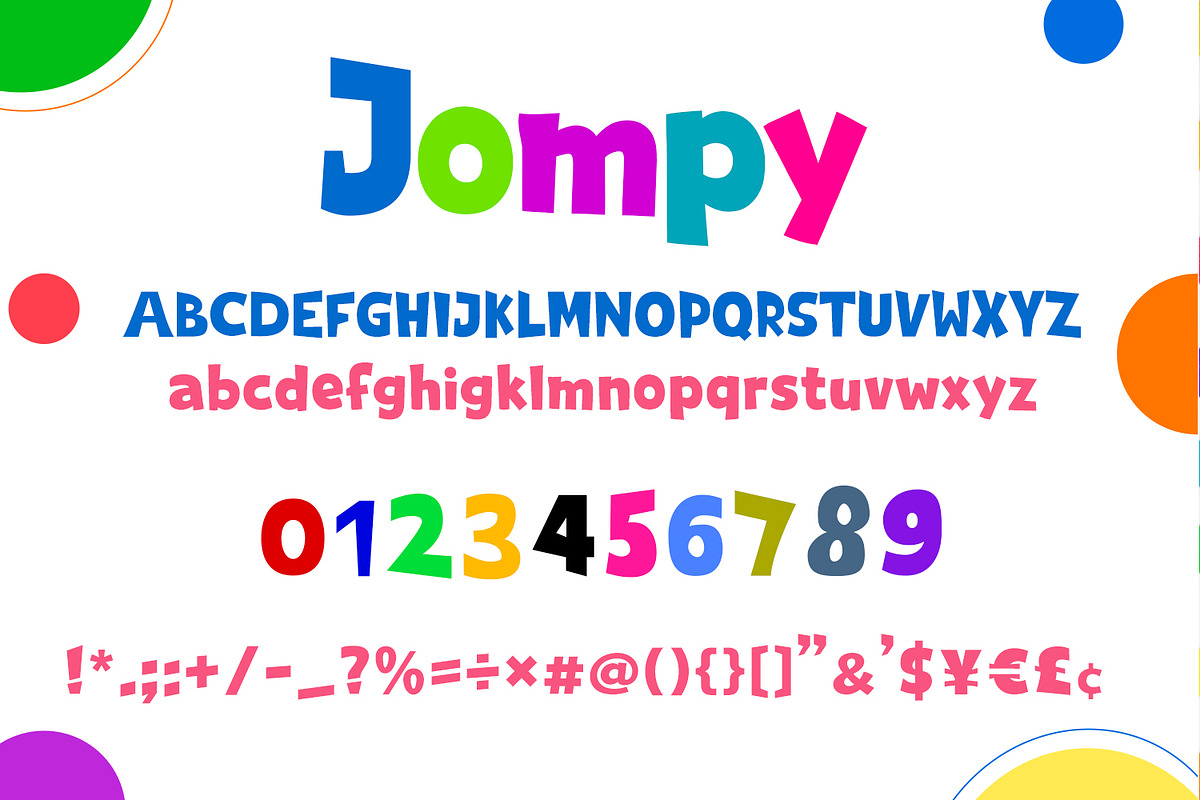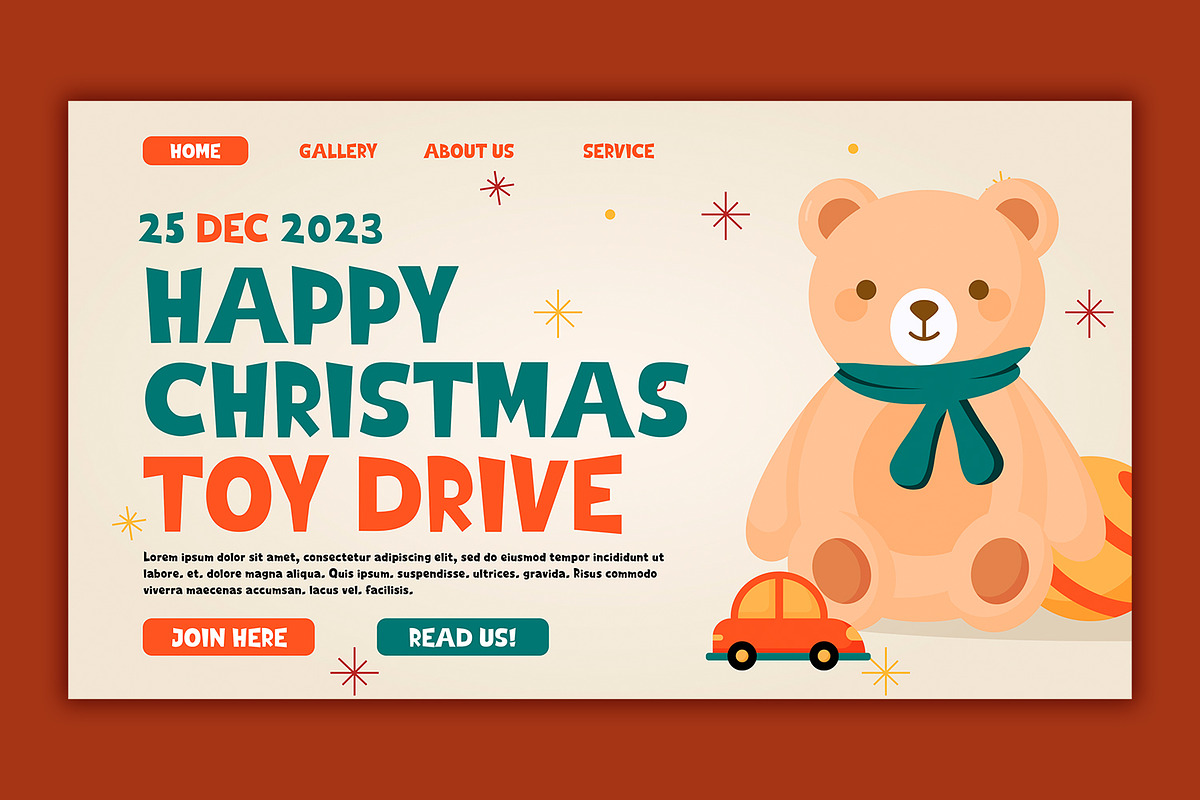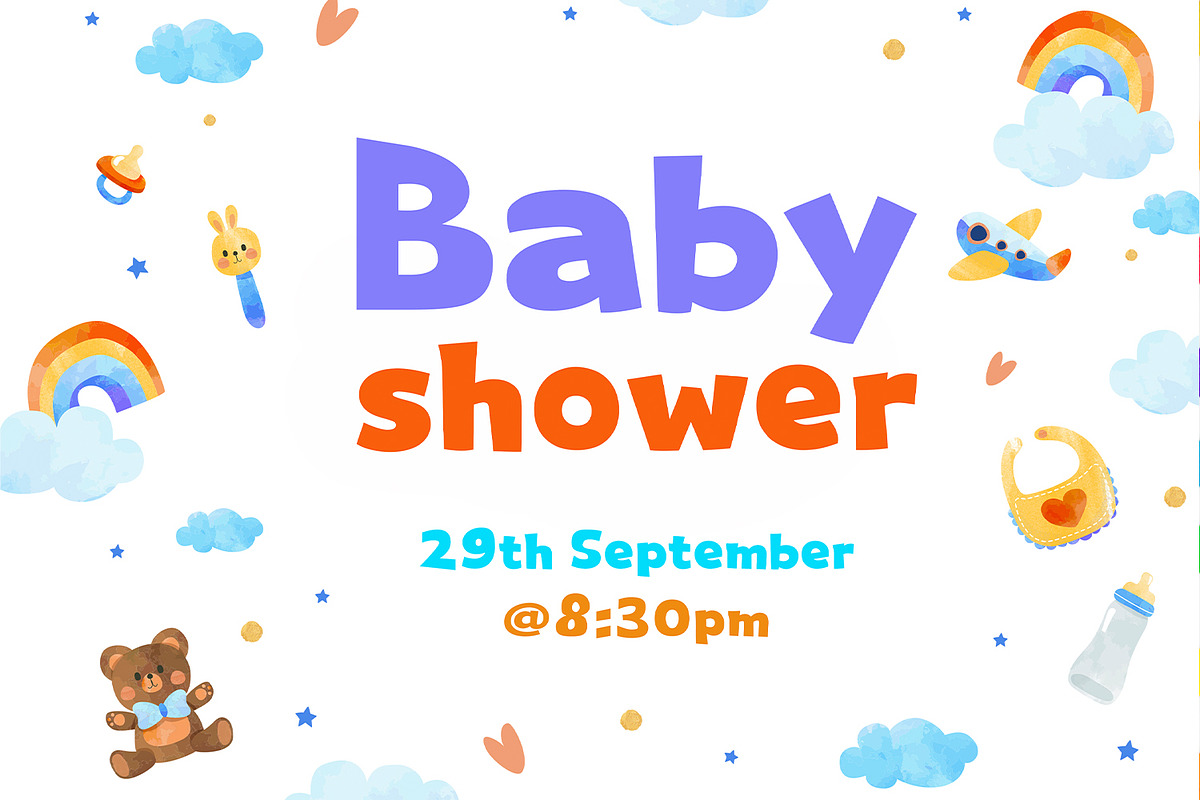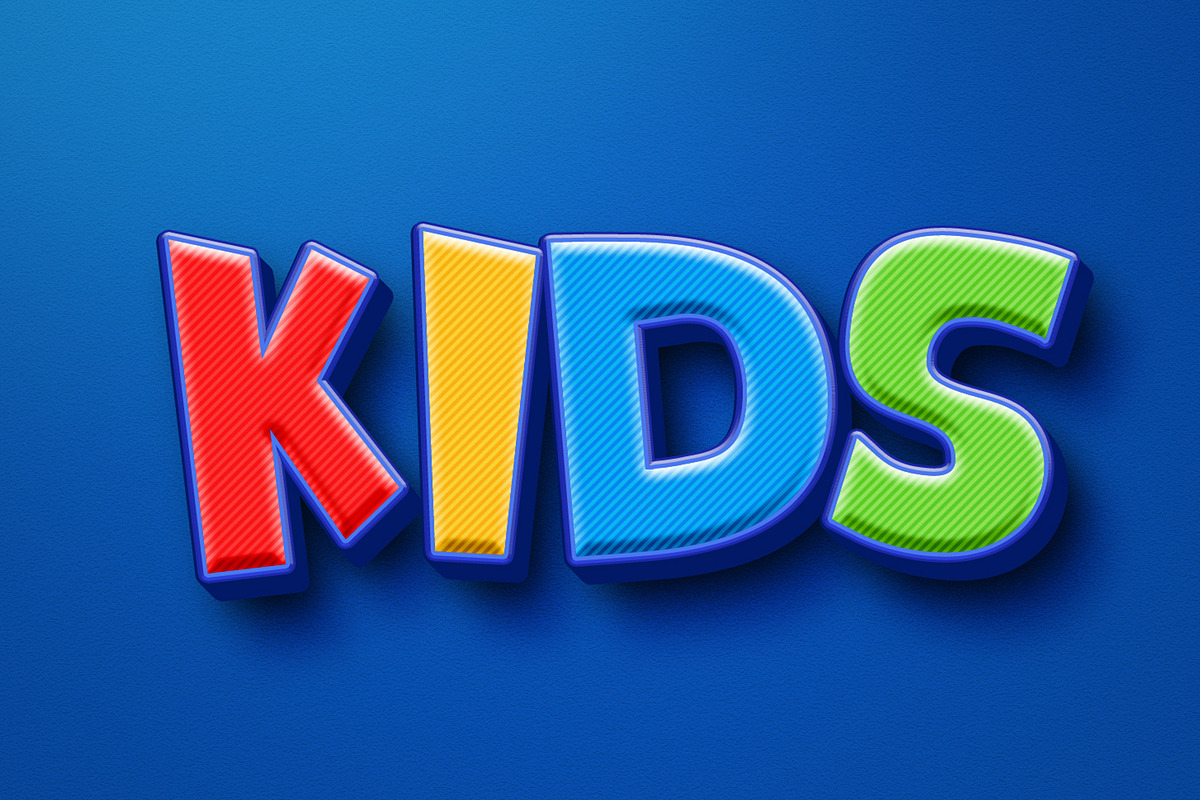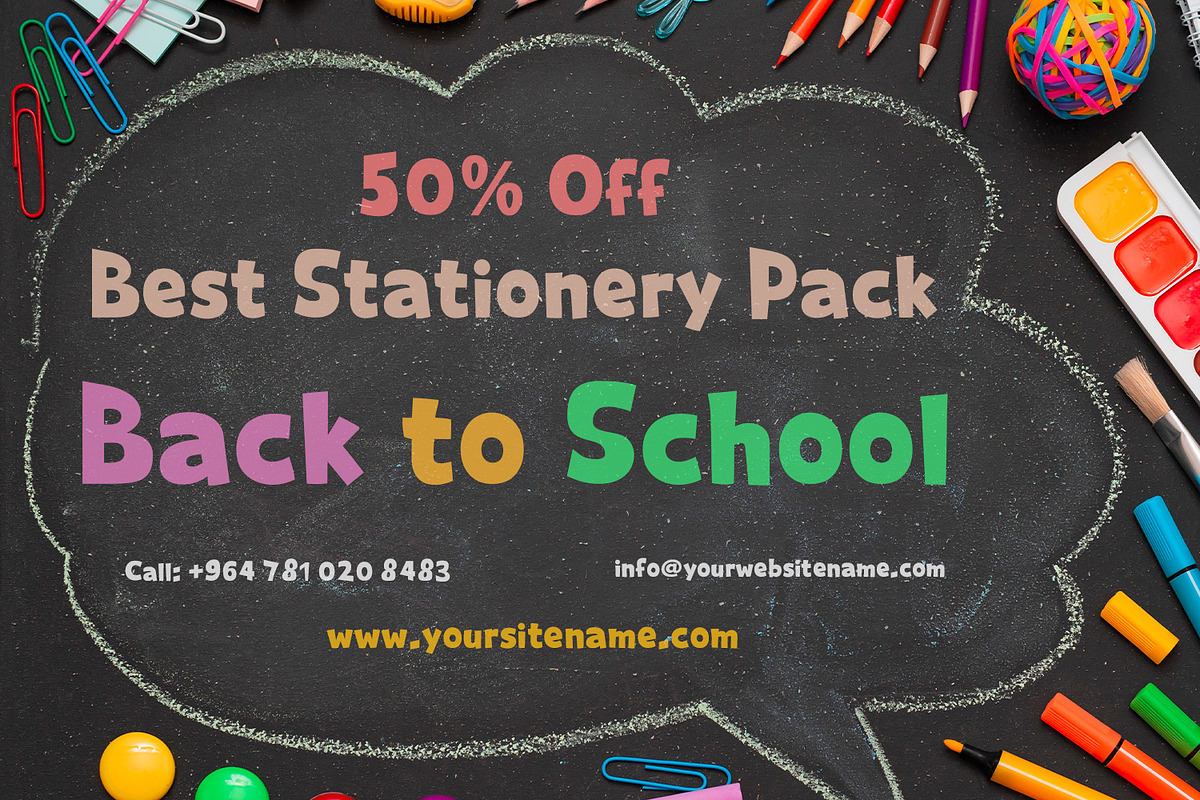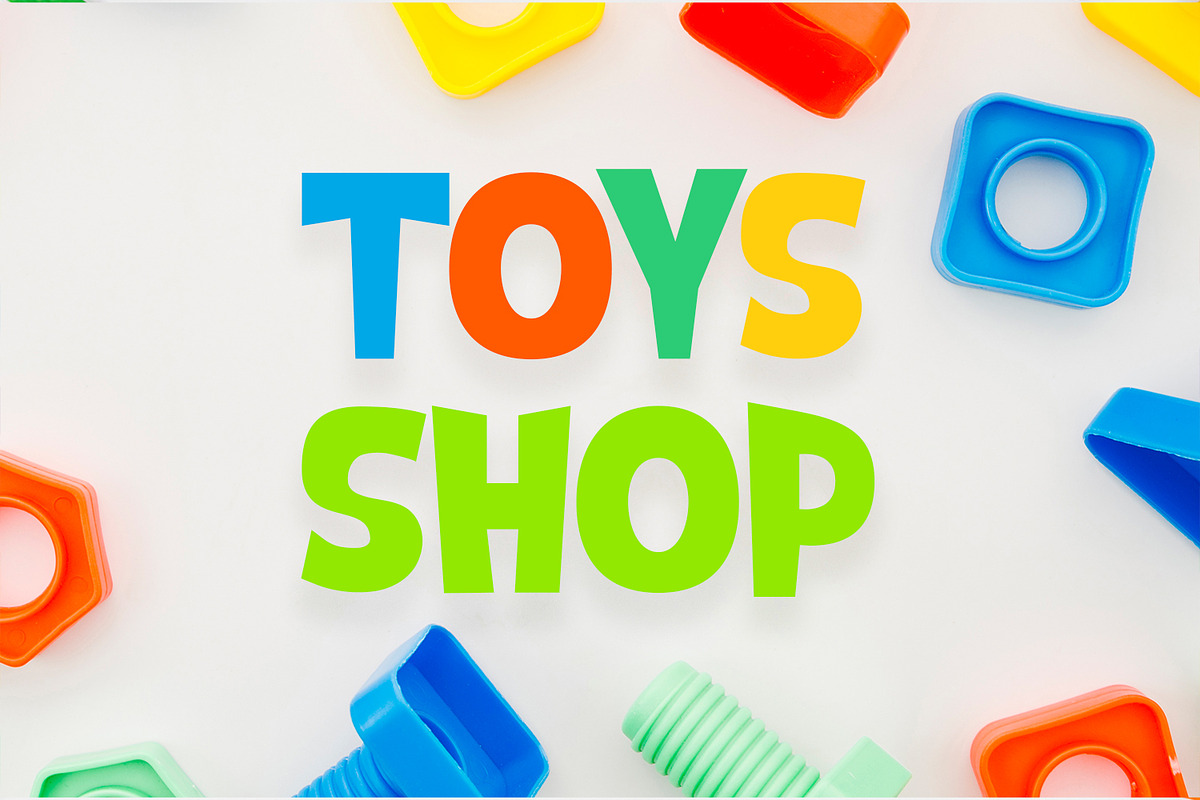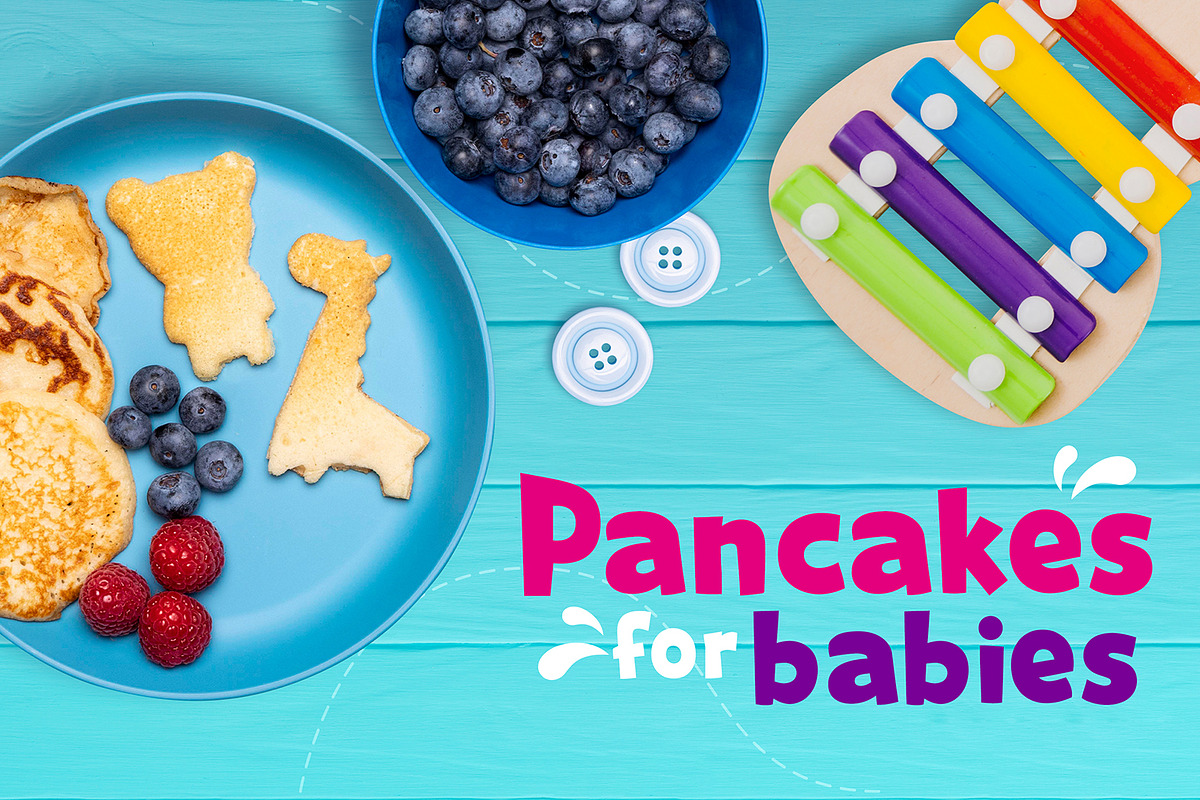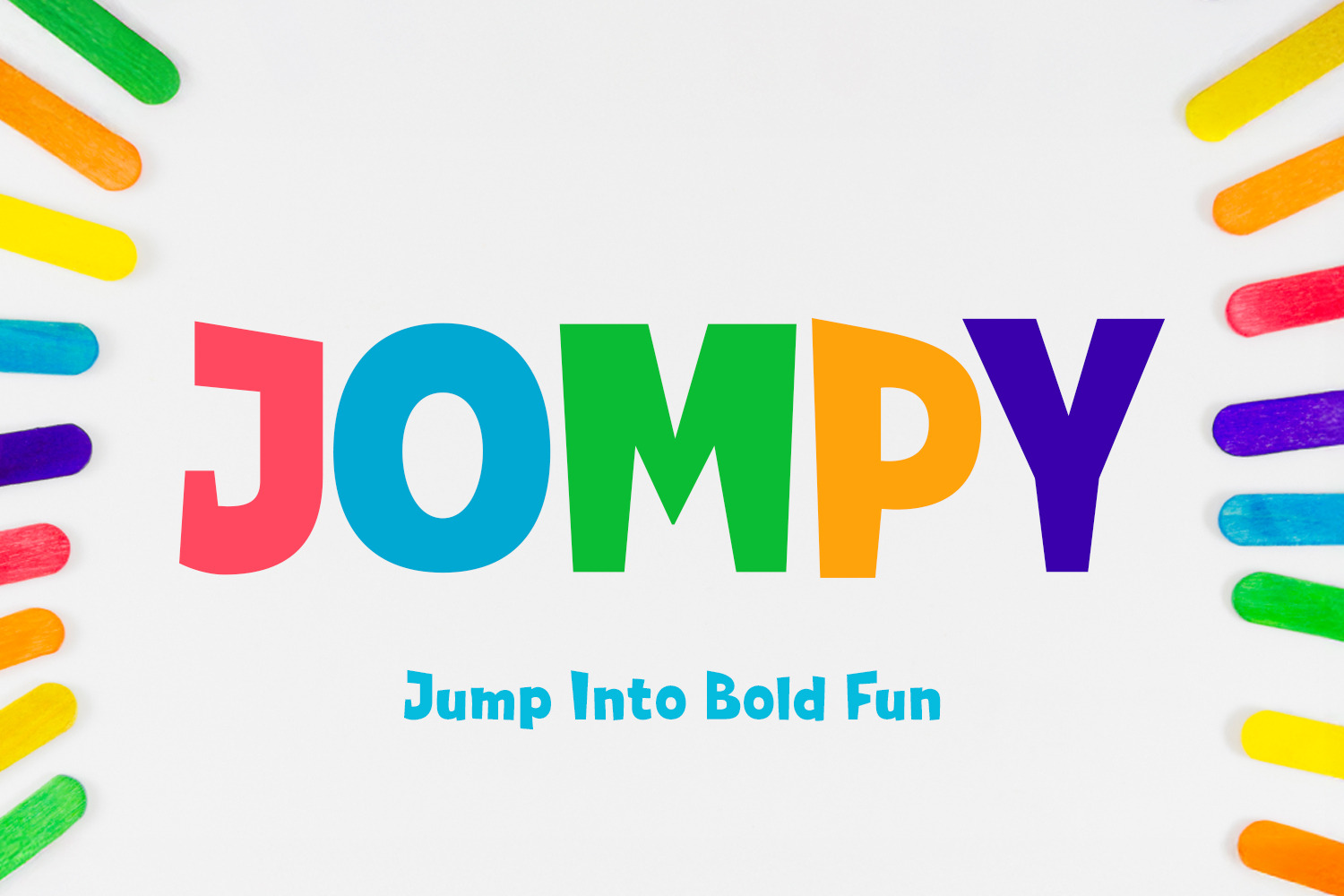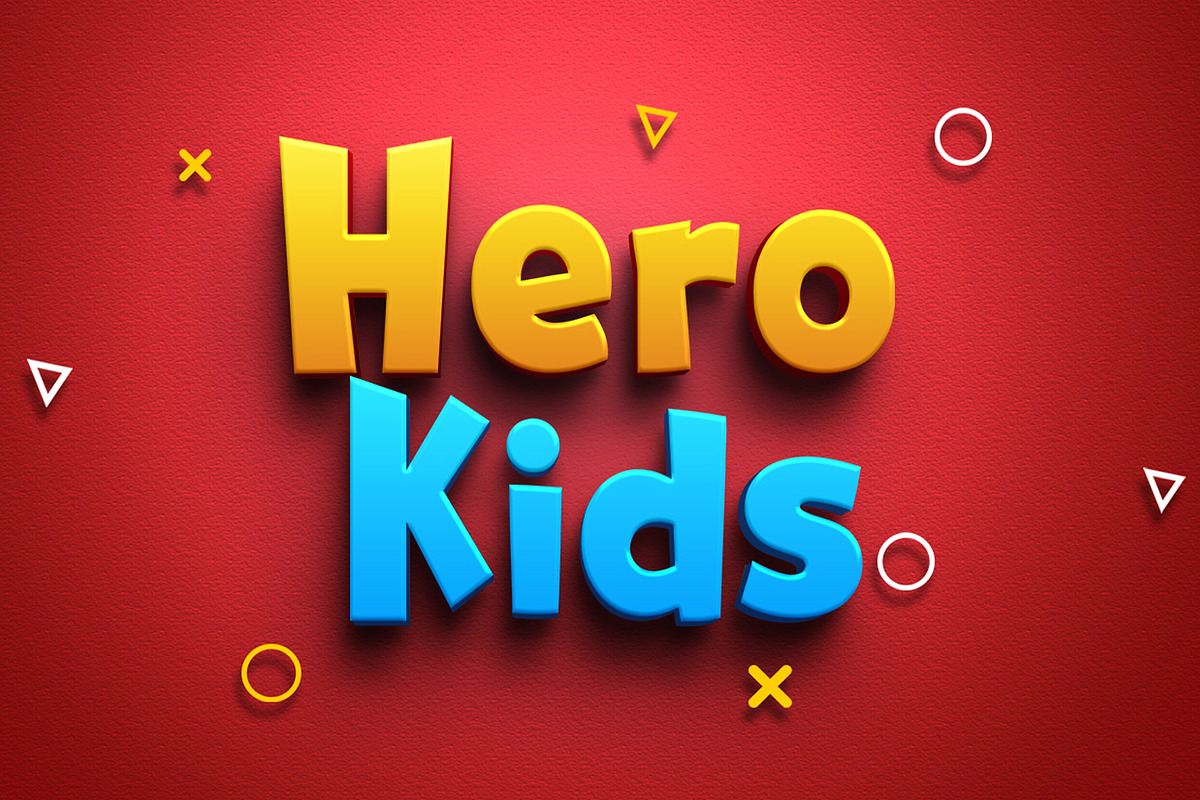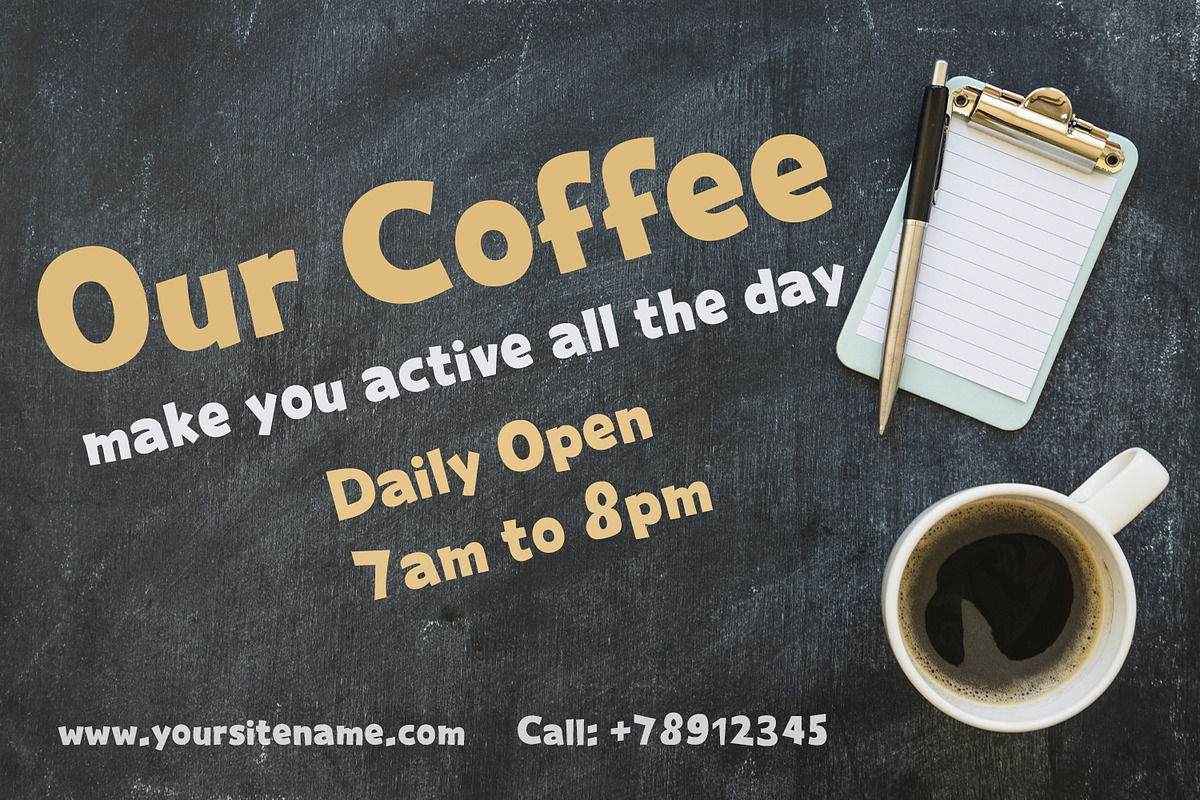
JOMPY – Playful Bold Display Font
JOMPY is a bold, chunky display font designed to bring playful energy and strong personality to your creative projects. Featuring slightly irregular shapes and a lively, bouncy rhythm, this fun cartoon-style typeface instantly grabs attention and adds a joyful touch to any design.
Perfect for kids branding, baby shower invitations, toy packaging, educational materials, posters, social media graphics, YouTube thumbnails, and eye-catching logos, JOMPY delivers high visual impact while maintaining a friendly and approachable feel.
Its thick strokes, dynamic letterforms, and colorful display potential make it ideal for bold headlines and expressive typography. Whether you're creating fun merchandise, seasonal promotions, school designs, or modern branding projects, JOMPY helps your message stand out with confidence and charm.
JOMPY — Jump Into Bold Fun.